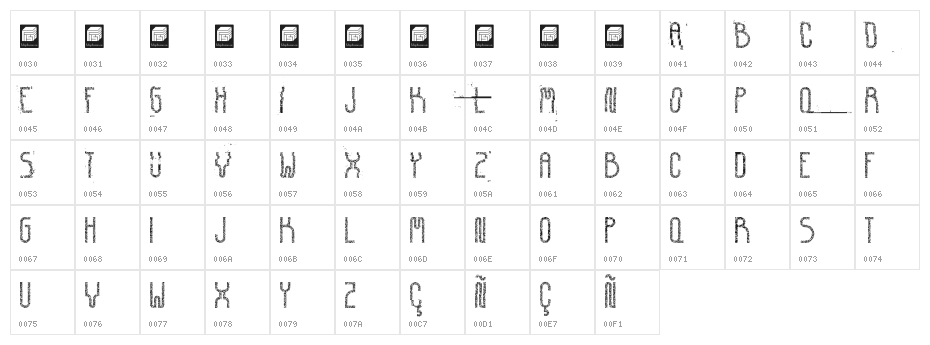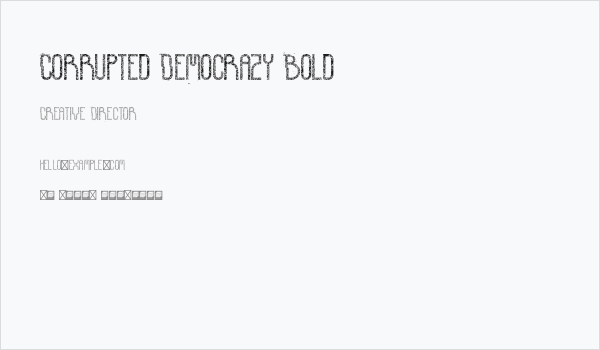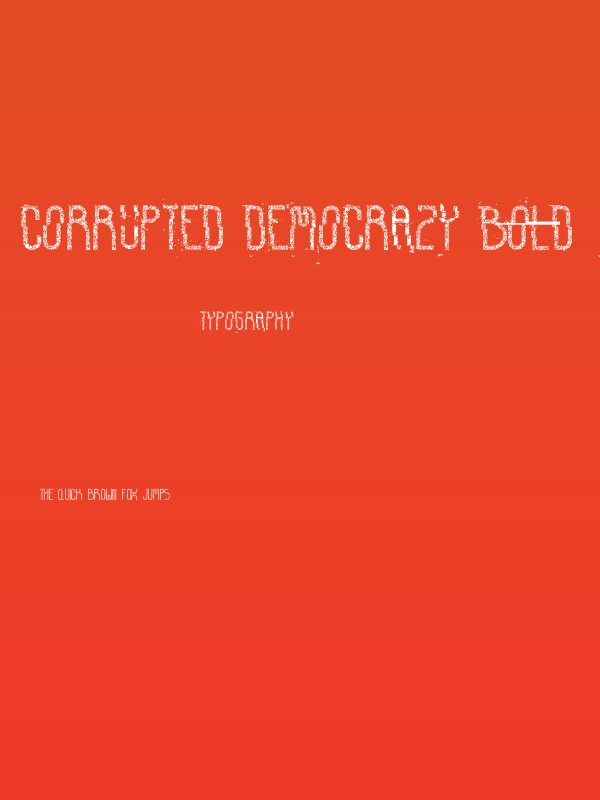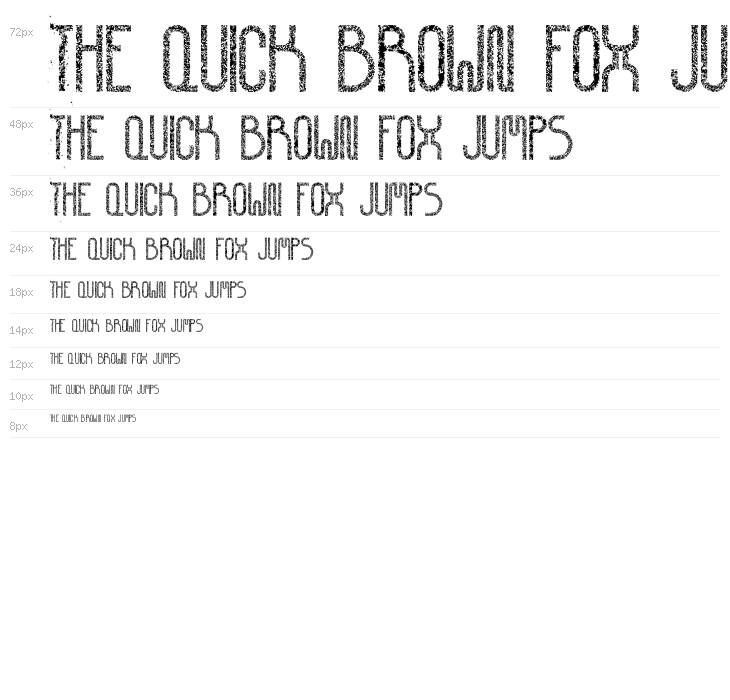
Corrupted Democrazy Bold Font
Corrupted Democrazy Bold Description
This font features a distressed and grungy aesthetic, characterized by its rough, textured appearance. The letters are bold and uppercase, with a unique, eroded effect that gives them a worn and vintage feel. The design is reminiscent of urban street art or aged print, making it ideal for projects that require a raw, edgy look. The characters maintain a consistent height and width, ensuring readability despite their distressed style. This font is particularly suitable for creative projects that aim to convey a sense of rebellion or nonconformity.
Overall StyleGrunge, Urban, Vintage
Proposed ProjectsIdeal for album covers, posters, streetwear branding, and urban-themed designs.